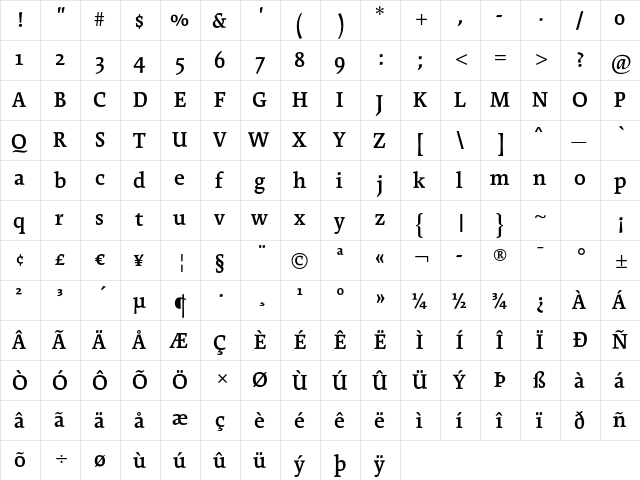
Cartier Book Pro Medium
| Designer | Carl Dair/Rod McDonald |
Design Context for Cartier Book Pro Typeface
Cartier Book Pro offers clean, dependable letterforms without strong stylistic allegiance, making it a practical choice for designers who need flexibility.